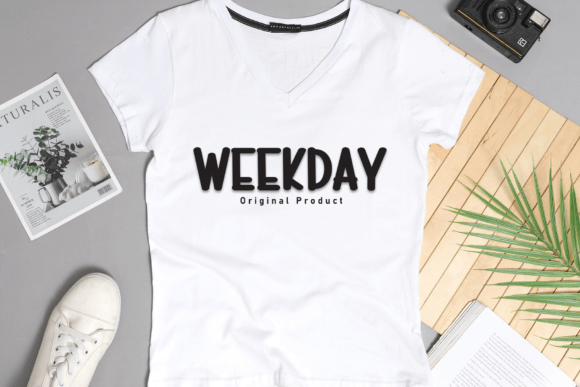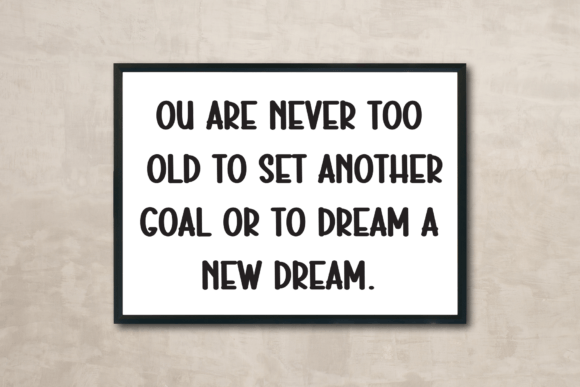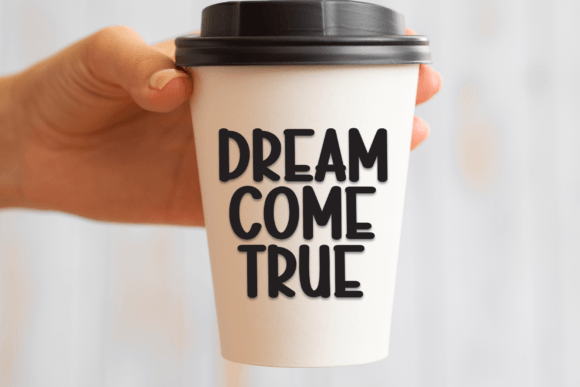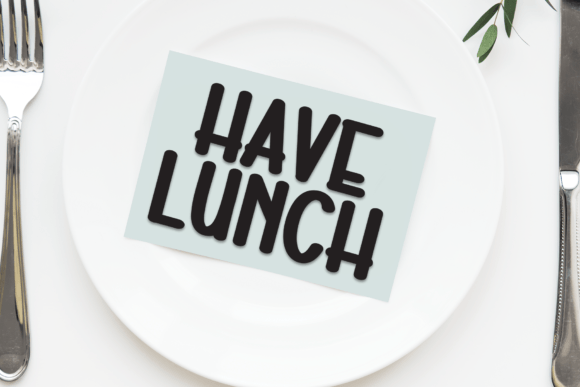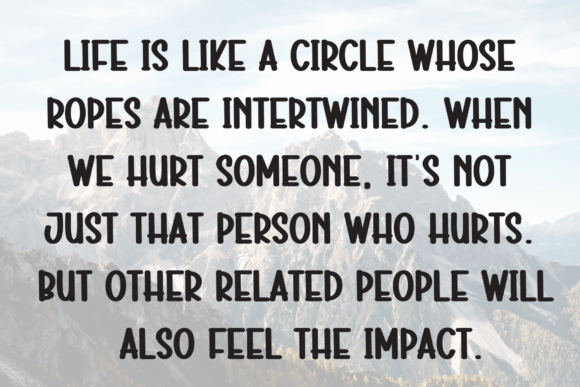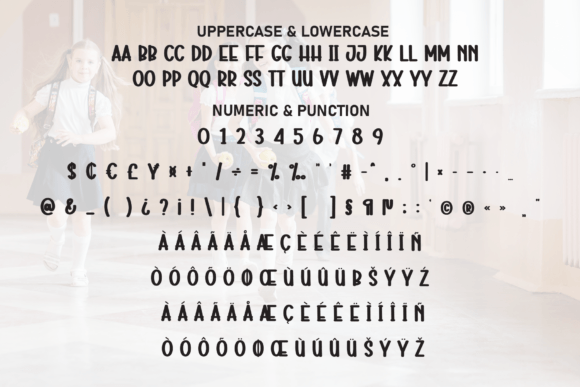
The Boho School Font: A Bold and Trendy Addition to Your Design Arsenal
I’ll never forget the time I was working on a project for a client’s bohemian-themed cafe. I had the perfect design concept, but I was struggling to find a font that captured the relaxed, eclectic vibe I was going for. That’s when I stumbled upon the Boho School font. It was love at first sight! The bold, eye-catching letters and laid-back style instantly resonated with my design aesthetic. In this article, I’ll share my experience with the Boho School font, its features, and how to make the most of it in your designs.
An Honest Review of Boho School Font
- ✨ Unique and trendy design: Boho School font has a distinct bohemian style that’s perfect for creating fun signs, posters, and other eye-catching designs.
- ✅ Easy to read: The thick letters make it easy to read, even from a distance, which is perfect for large-format designs.
- ✨ Versatile: This font can be used for a wide range of design projects, from branding and advertising to packaging and more.
While I adore the Boho School font, there are a few things to keep in mind:
- ⚠️ Legibility at small sizes: While the font is easy to read at larger sizes, it can become a bit tricky to read at smaller sizes. Be sure to test it at different sizes to ensure it works for your design.
- 🤔 Limited formal applications: Due to its bold and playful nature, Boho School font might not be the best choice for formal or professional designs, such as business reports or academic papers.
A Practical Guide to Using Boho School Font
The Story Behind Boho School Font
The Boho School font was designed by a team of creatives who wanted to capture the essence of bohemian style in a modern, digital font. Inspired by vintage posters, street art, and eclectic fashion, this font is perfect for designers who want to add a touch of personality to their work.
Q: What is the Boho School font best used for?
A: Boho School font is perfect for creating fun signs, posters, and other eye-catching designs that require a trendy, bohemian vibe.
Q: Is Boho School font suitable for body text?
A: While Boho School font is easy to read, it’s not ideal for body text due to its bold and playful nature. It’s best used for headings, titles, and short paragraphs.